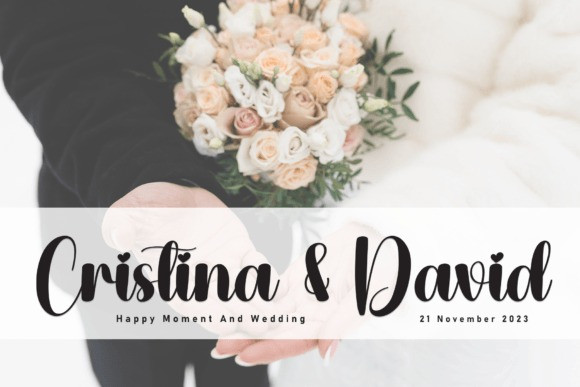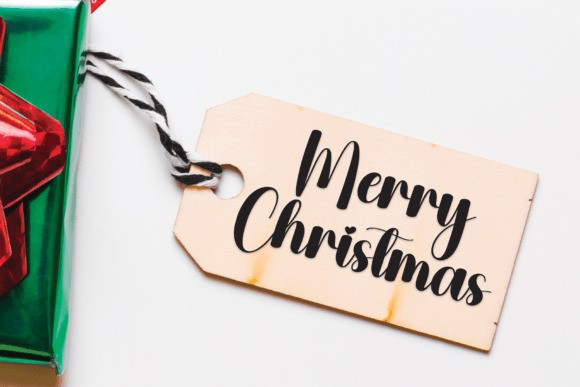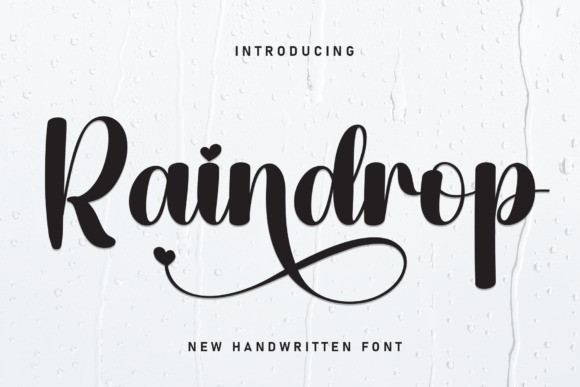
Raindrop Script Font
Raindrop Script Font is a whimsical handwritten font that dances across the page with graceful swashes, reminiscent of falling raindrops. Each stroke is infused with a touch of playfulness, and the tails elegantly curl into sweet hearts, adding a dash of romance to your words. It’s the perfect choice when you want your writing to feel as charming as a drizzle on a cozy day.